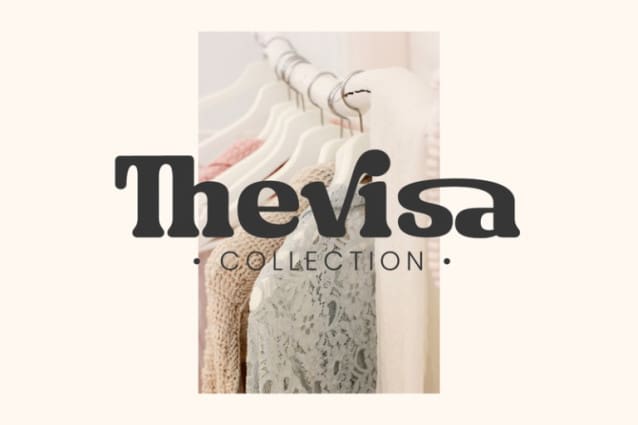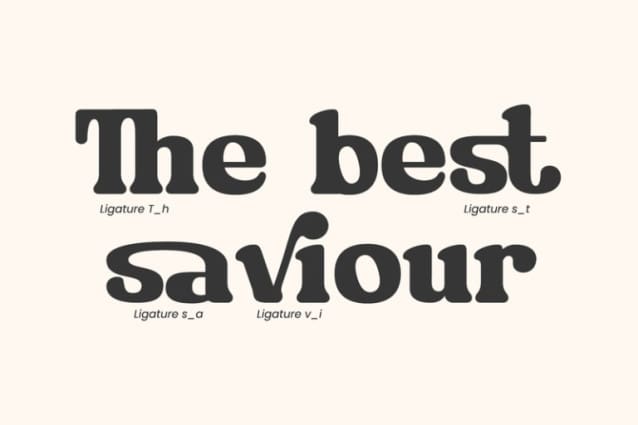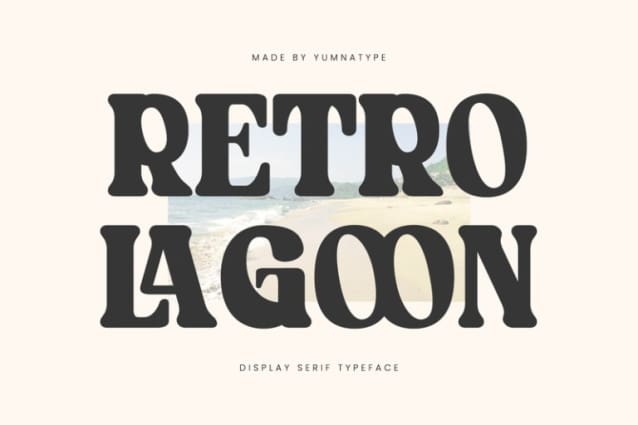
Retro Lagoon Font
Retro Lagoon Font is a captivating serif font that channels the essence of bygone eras with a contemporary twist. With its bold weight and modern styling, this font captures the nostalgia of retro design while maintaining a fresh and dynamic appeal. Crafted with meticulous attention to detail, Retro Lagoon is made with bold and striking letterforms that command attention on the page.
Despite its retro-inspired roots, Retro Lagoon is designed with a modern sensibility that ensures its relevance in today’s design landscape. Clean lines, balanced proportions, and subtle details give this font a timeless quality that transcends trends and adds a touch of sophistication to any project.